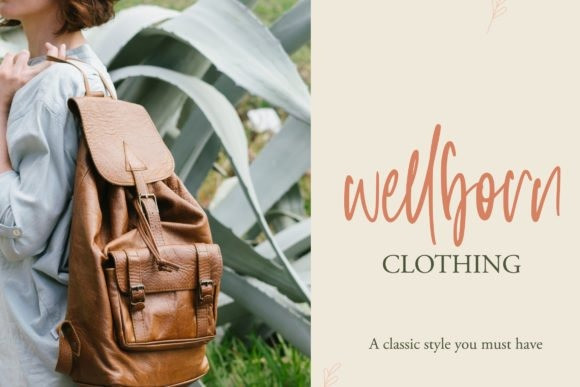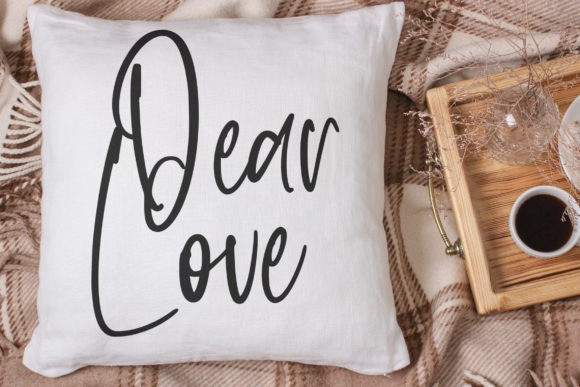
Beauty Day Brush Font
Beauty Day is a unique and whimsical brushed handwritten font. It looks beautiful on a variety of designs requiring a personalized style, such as wedding invitations, thank you cards, weddings, greeting cards, logos and so on.